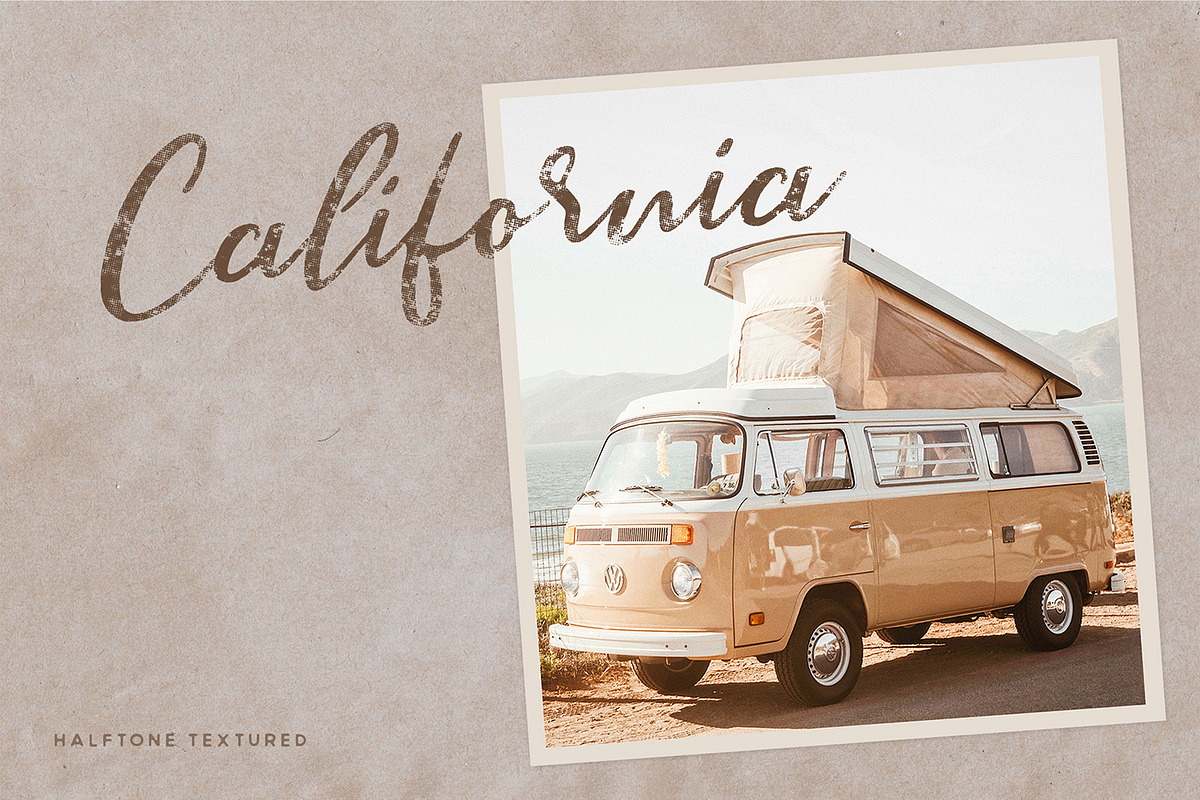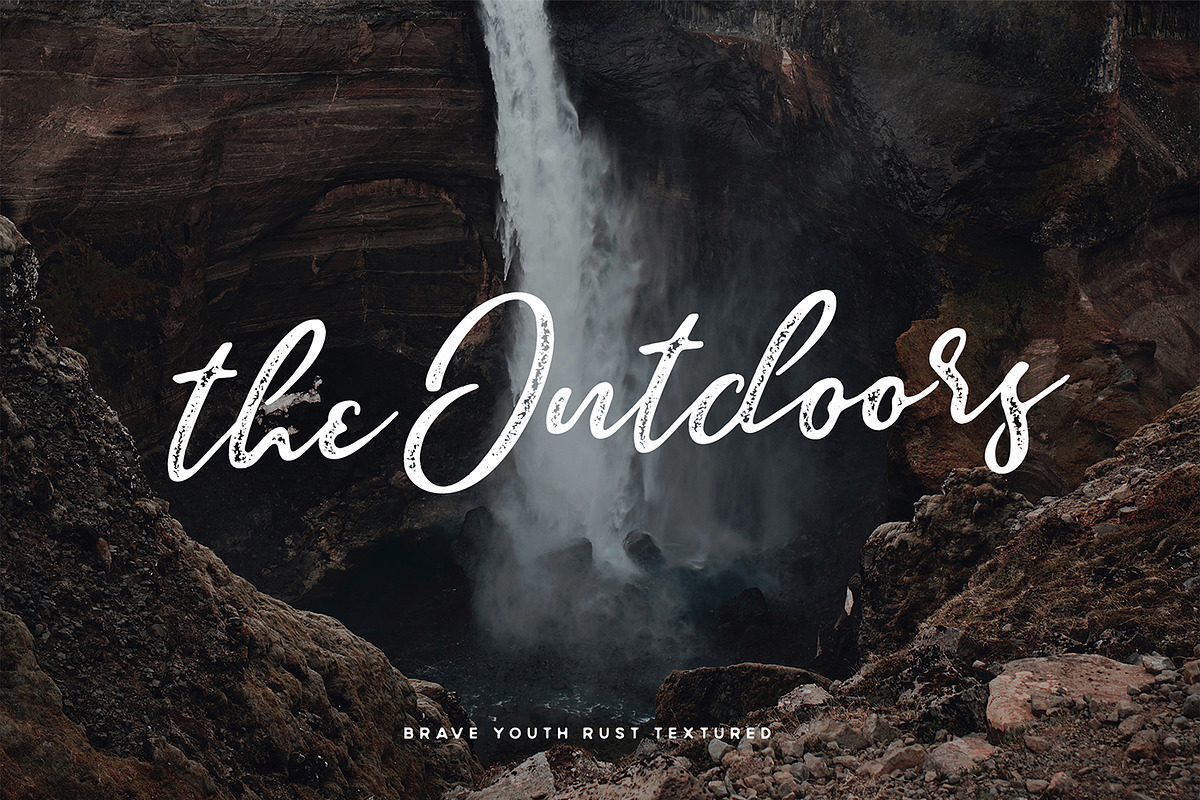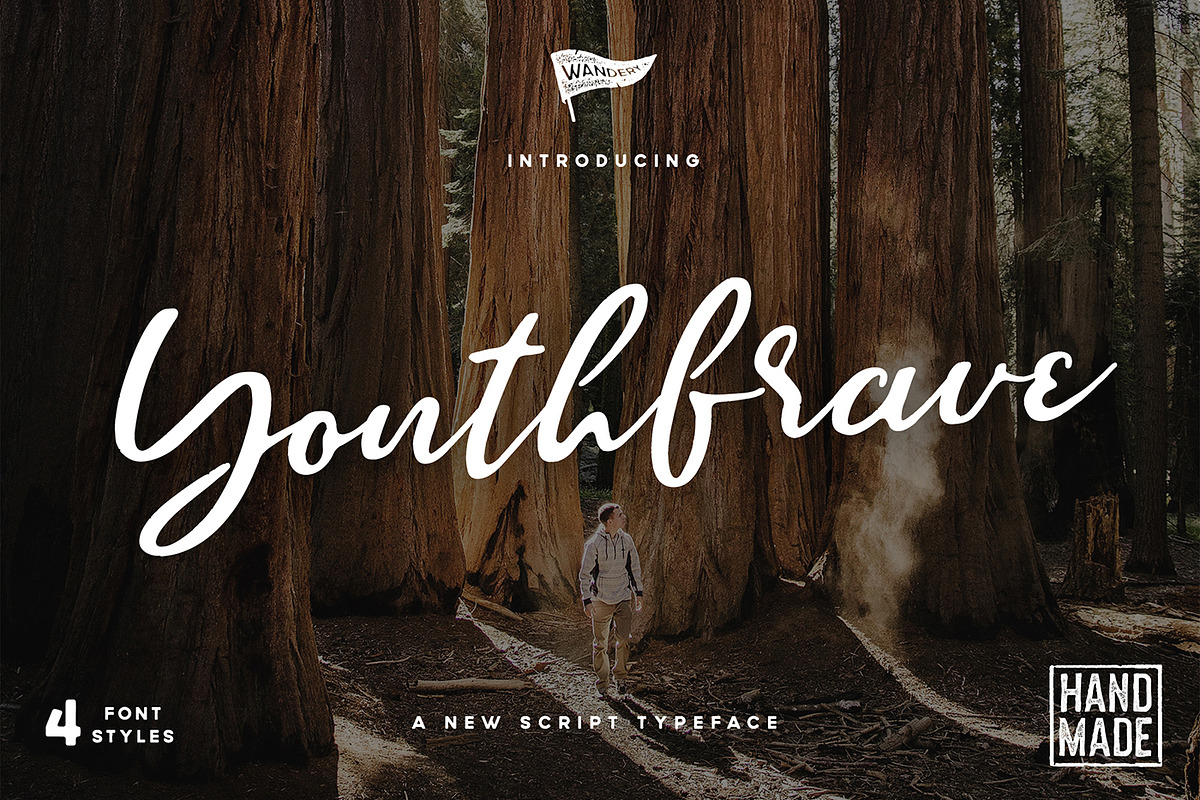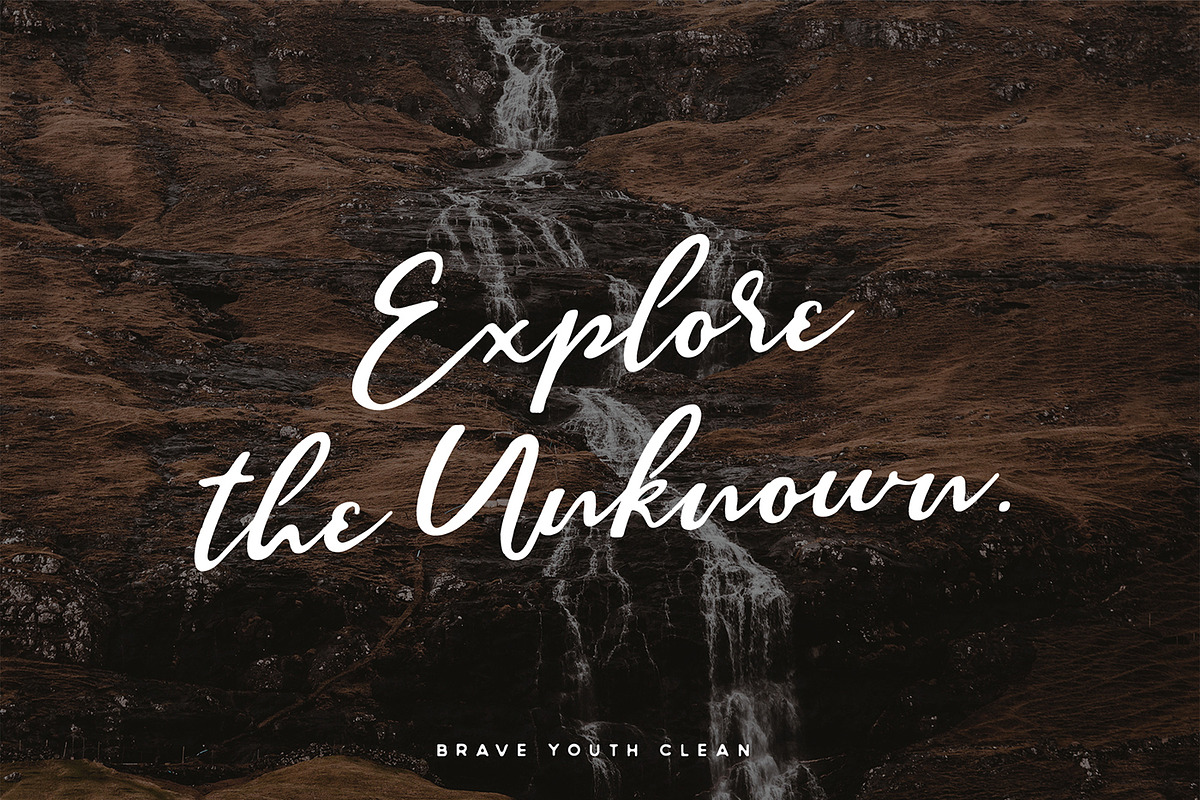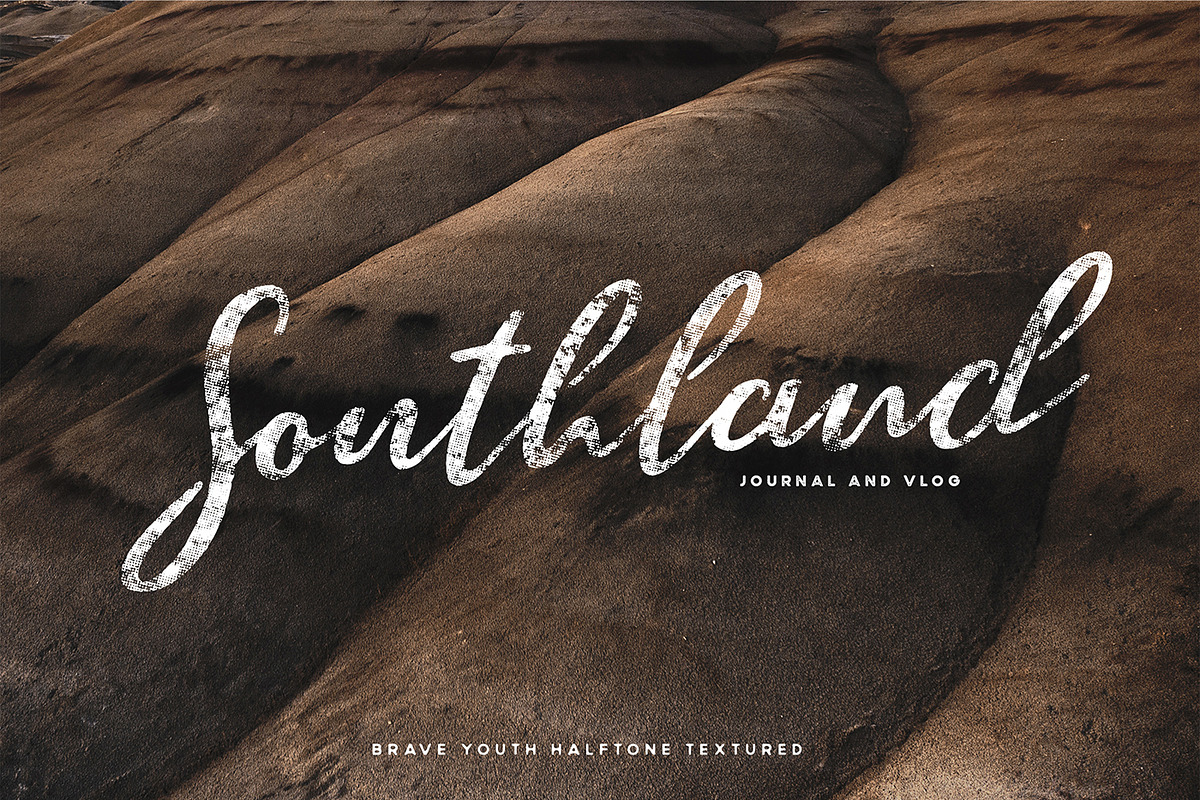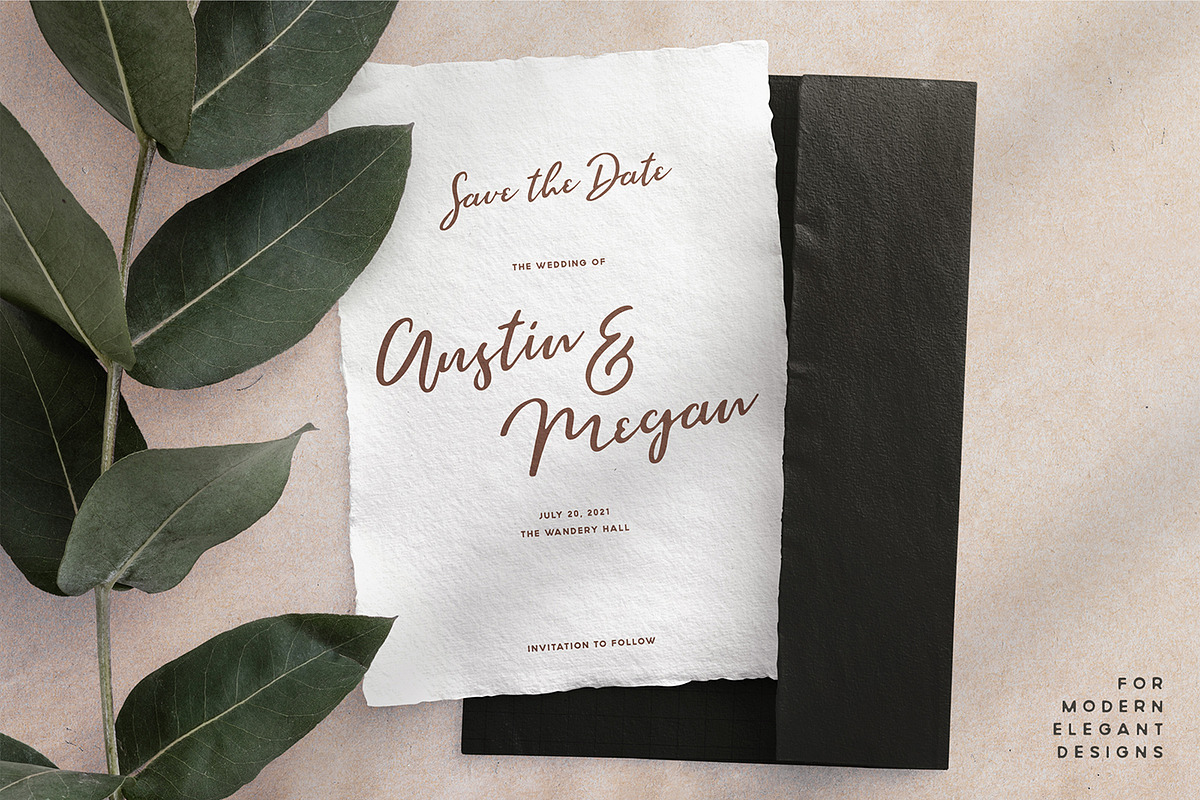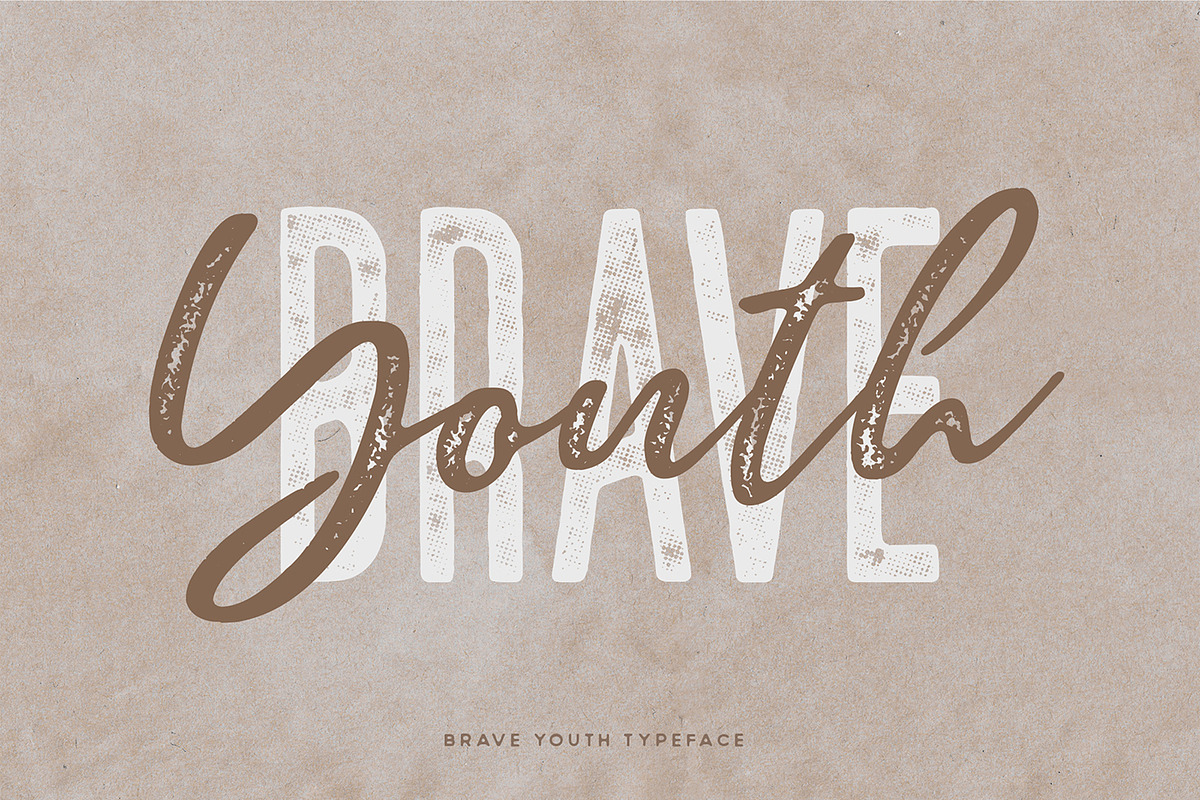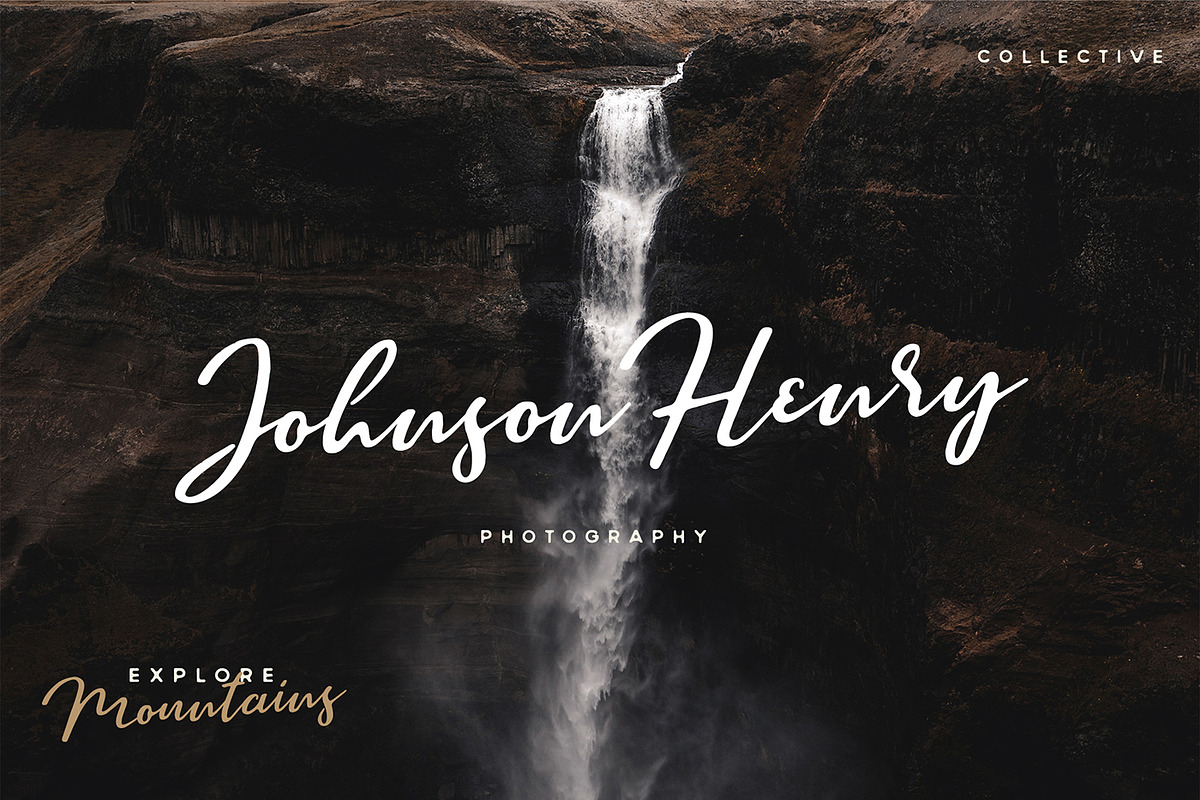
Brave Youth Script Typeface
Brave Youth Script Typeface with 4 Font Styles
Brave Youth is a handmade script typeface, come with 4 Font Styles Brave Youth Clean, Brave Youth Rust, Brave Youth Halftone and Brave Youth Stamp. The textured styles is well crafted and added carefully in each character. Each styles have different purposes, the font with texture, rough and stamp is for vintage style and the clean version for modern designs. Brave Youth is perfect choices for armored your next project.
Suitable for any graphic designs such as branding materials, t-shirt, cover, thumbnail, print, business cards, logo, poster, t-shirt, photography, quotes .etc